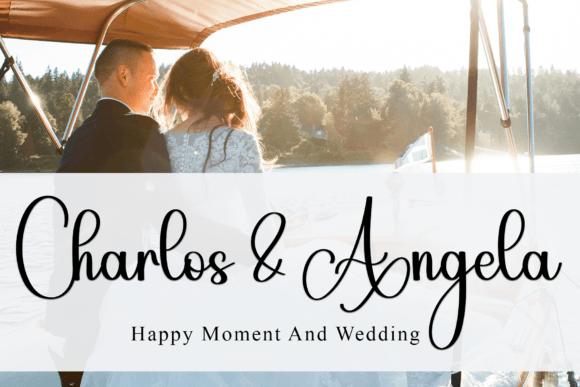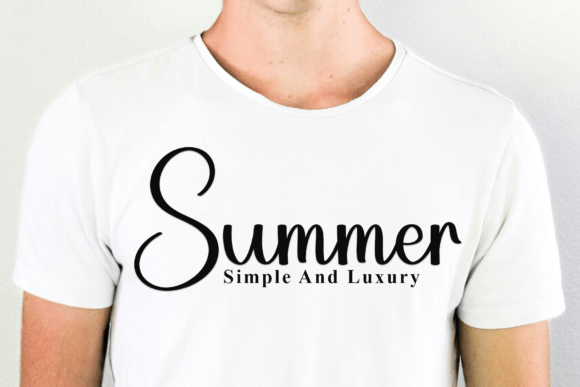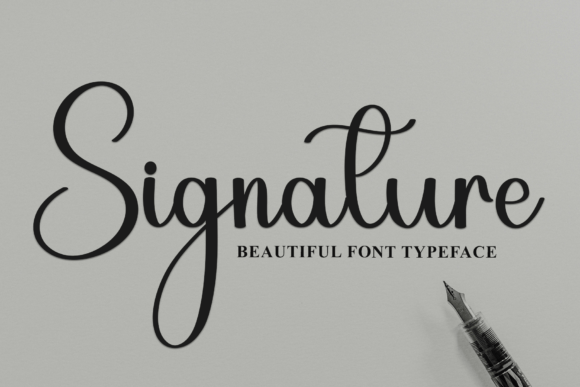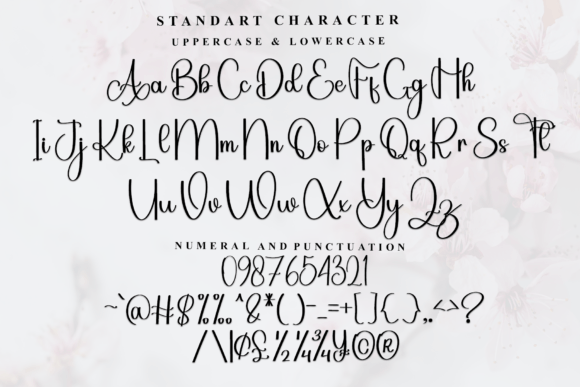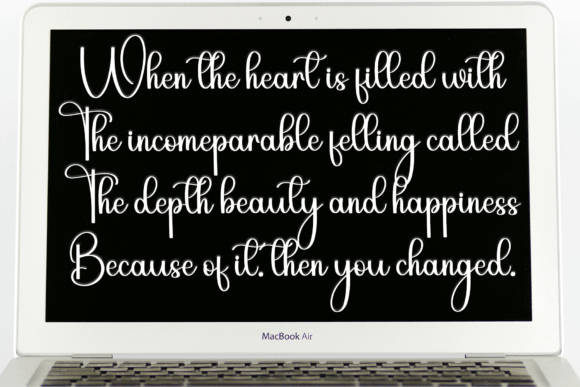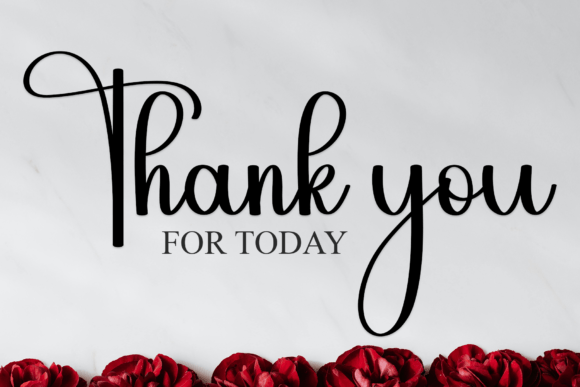
Discover the Elegance of Angela Font: A Timeless Choice for Designers and Crafters
In the world of typography, few fonts manage to capture the essence of elegance and timelessness as effectively as Angela Font. This exquisite typeface is designed to bring a touch of sophistication and refinement to any design project, making it a versatile choice for a wide range of creative applications. Whether you’re a seasoned designer or a passionate crafter, Angela Font is sure to become an indispensable part of your toolkit.
The Characteristics of Angela Font
Angela Font is characterized by its delicate and elegant appearance, which is achieved through its well-balanced characters. Each letterform is meticulously crafted to ensure that the font looks harmonious and aesthetically pleasing, whether it’s used for headings, body text, or decorative purposes. This balance and attention to detail make Angela Font an excellent match for various design styles, from classic and traditional to modern and minimalist.
One of the standout features of Angela Font is its versatility. Its timeless design ensures that it can be seamlessly integrated into a wide pool of designs, including but not limited to:
- Fashion branding and advertising
- Packaging design for luxury goods
- Web design, including blogs and e-commerce sites
- DIY projects and crafting
Angela Font’s ability to elevate any design project is a testament to its quality and the skill of its creators. By incorporating this font into your projects, you’ll notice how it brings a level of sophistication and charm that can make even the most straightforward ideas seem more compelling and engaging.
PUA Coded for Easy Access to Glyphs and Ligatures
Angela Font is PUA (Private Use Area) coded, which is a significant advantage for designers and crafters. PUA coding allows for easy access to all the glyphs and ligatures included in the font, making it simple to incorporate these special characters into your designs. This feature is particularly beneficial for those working on projects that require a high level of customization or for those who want to add a unique touch to their work.
With PUA coding, you can:
- Easily access and use swashes, stylistic alternates, and ligatures
- Customize your text with unique glyphs and ornaments
- Ensure consistency in your design by using the font’s built-in features
Why Choose Angela Font?
There are several reasons why Angela Font stands out as a top choice for designers and crafters:
- Elegance and Timelessness: Its classic design ensures that your work will remain stylish for years to come.
- Versatility: It can be used across a variety of projects and design styles.
- PUA Coding: Offers easy access to glyphs and ligatures for added customization.
- High-Quality Design: Meticulously crafted characters for a beautiful and harmonious appearance.
Angela Font is a delicate, elegant, and timeless typeface that offers designers and crafters a versatile tool for enhancing their creative projects. Its well-balanced characters, PUA coding, and high-quality design make it an excellent choice for anyone looking to add a touch of sophistication and charm to their work. Whether you’re working on a professional design project or a personal crafting endeavor, Angela Font is sure to make your ideas come alive.